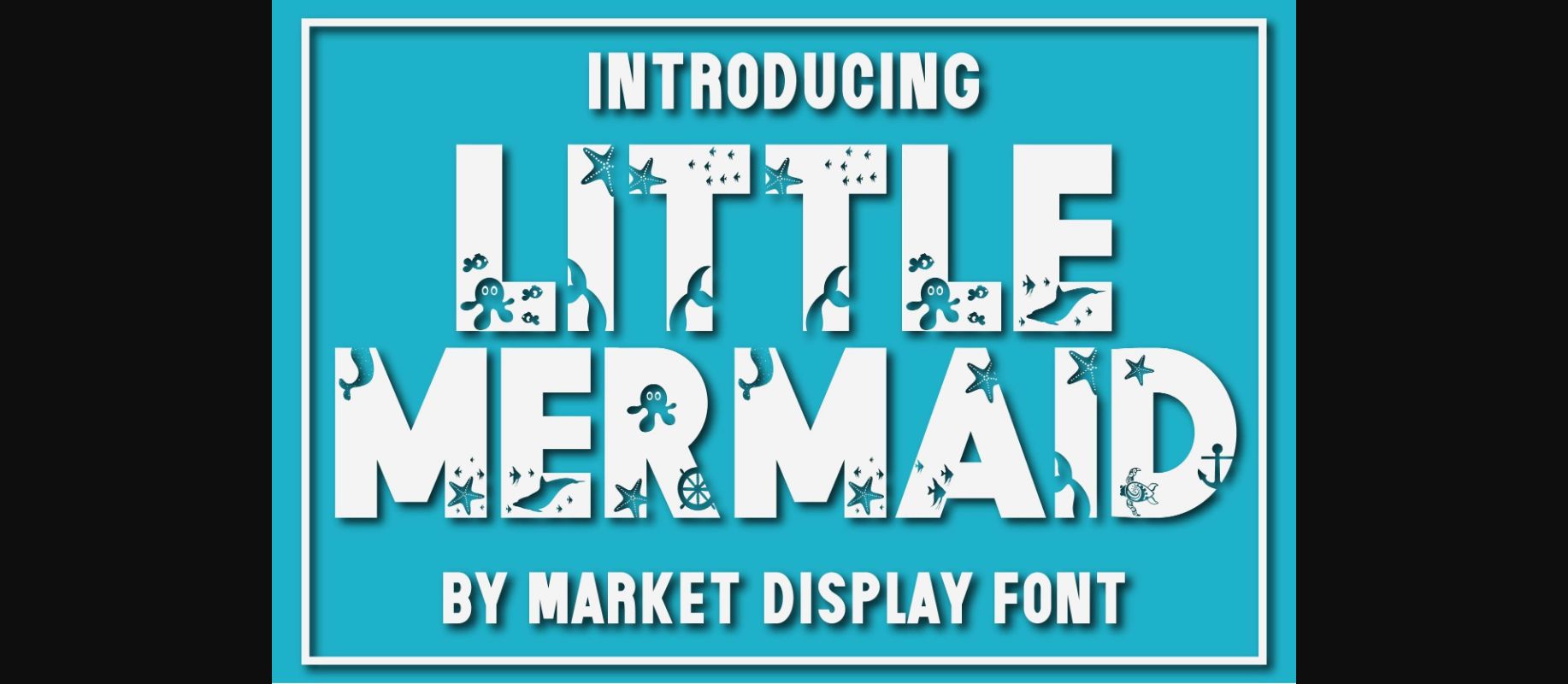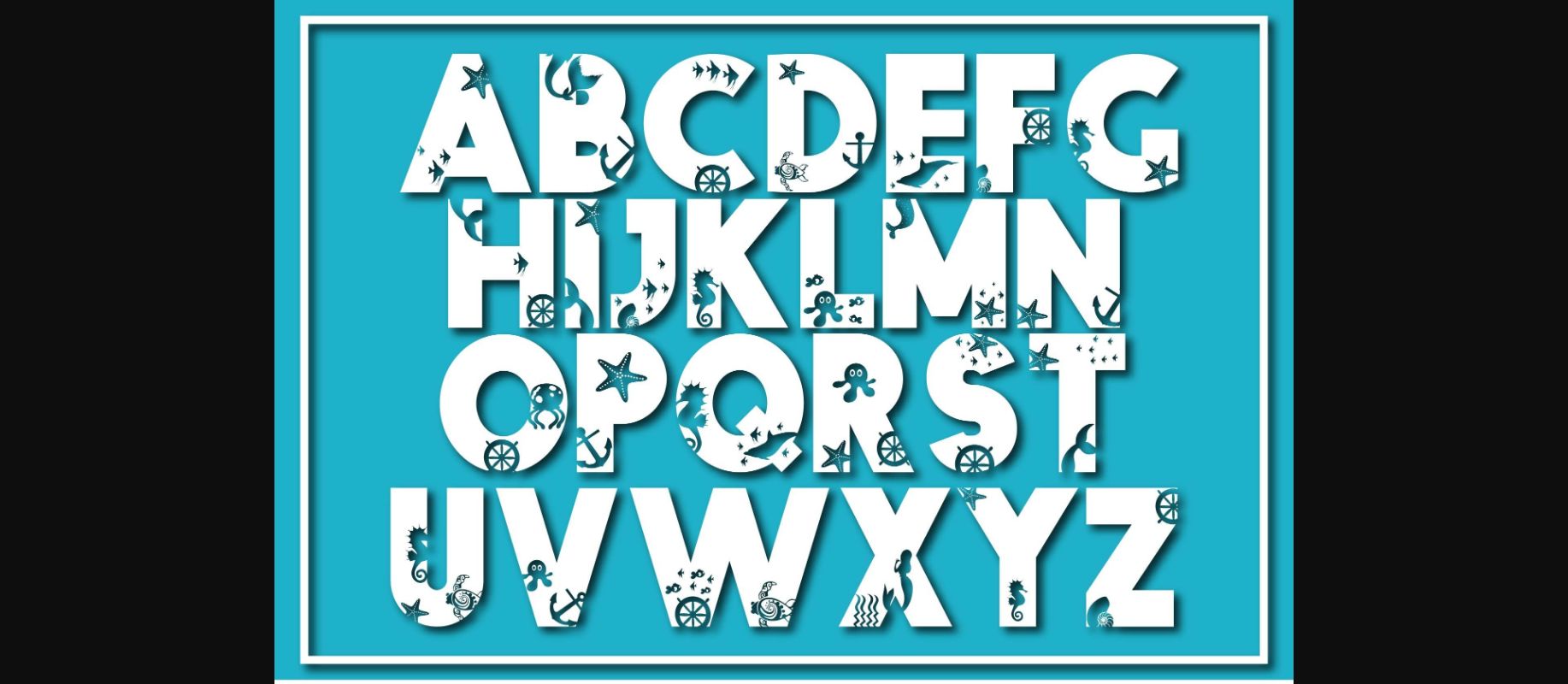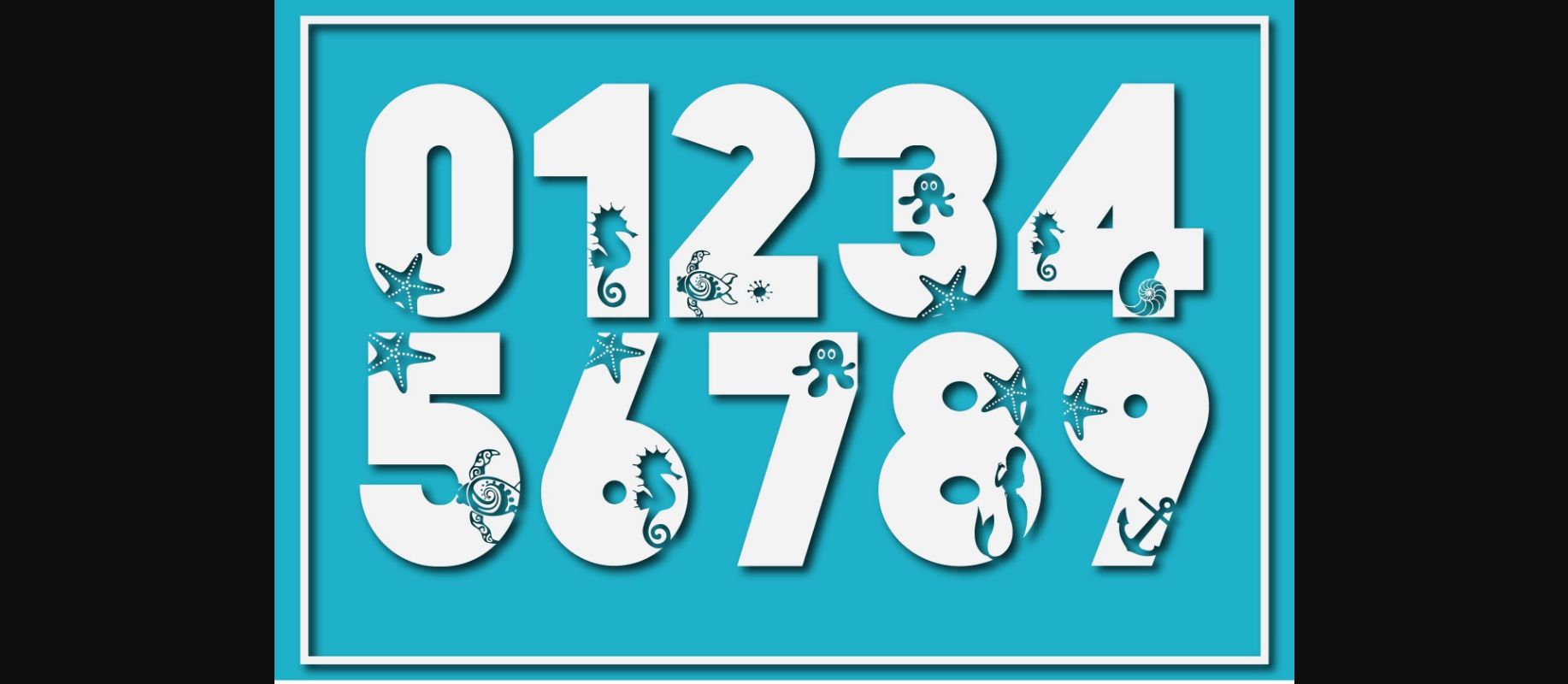
About Little Mermaid Font
Little Mermaid has playful decoratives with starfish, octopus, mermaid, and fishes, it’s a whole underwater world in a font. With this font, your messages will become really super cute. This font is perfect for posters, greeting cards, t-shirts, branding materials, quotes, and any other amazing projects you are working on.